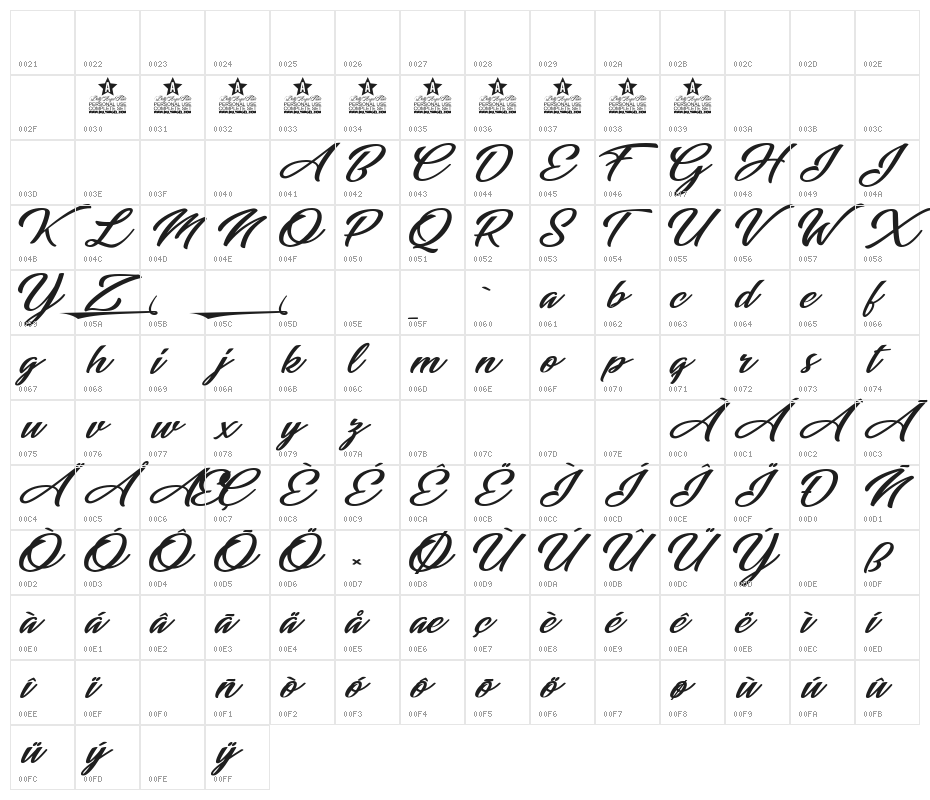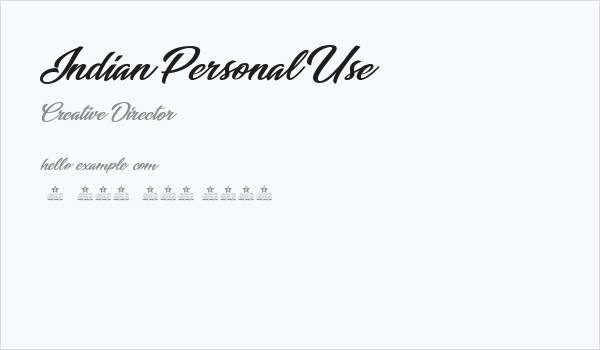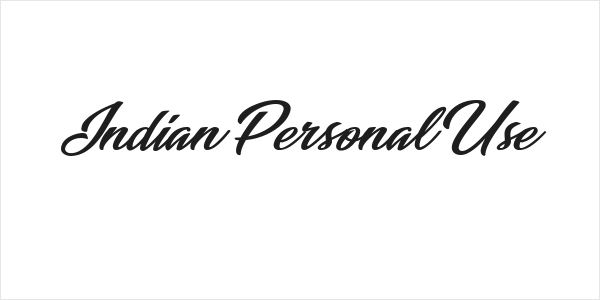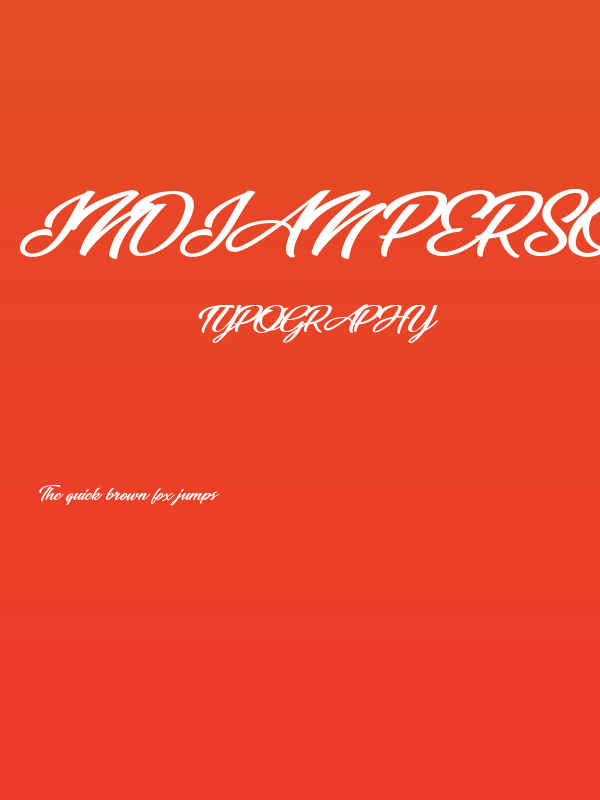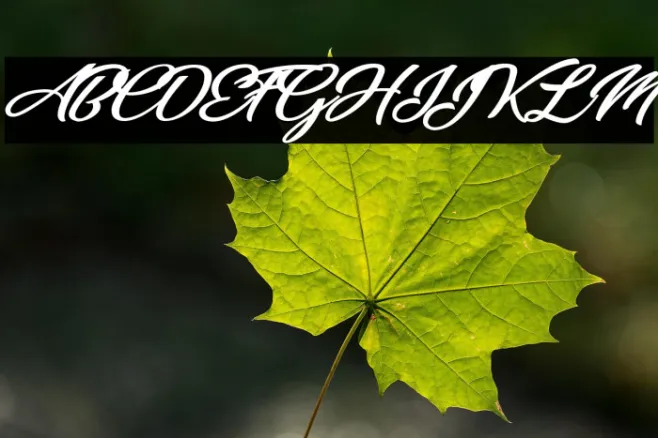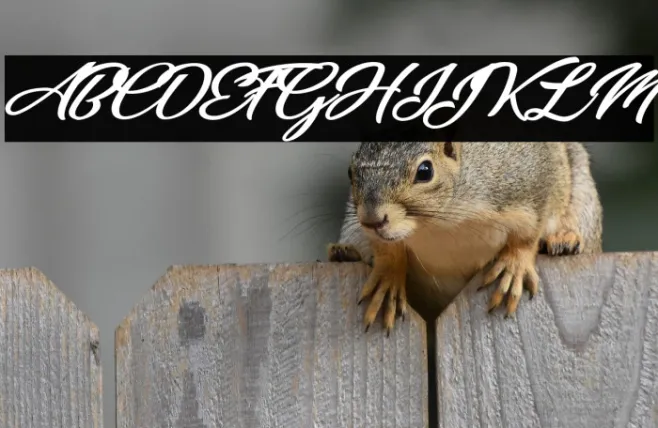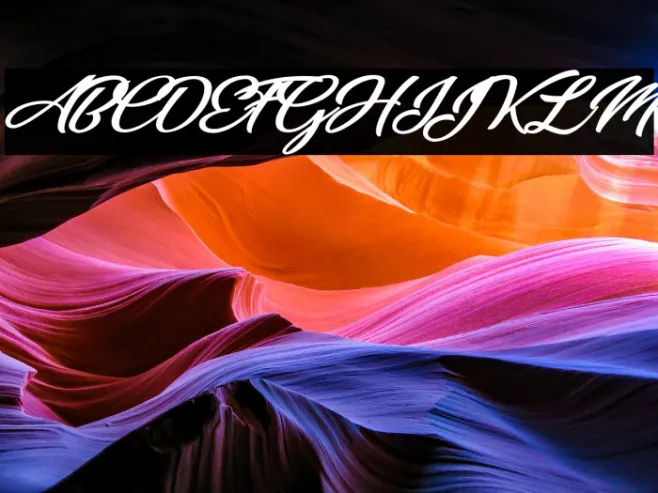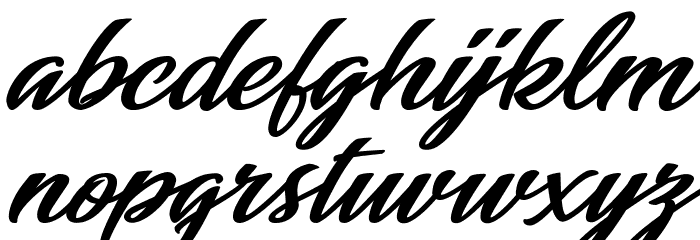
Indian Personal Use Font
Indian Personal Use Description
This font features an elegant, flowing script style that mimics the fluidity of handwriting. The characters are interconnected, creating a seamless and sophisticated appearance. The uppercase letters are ornate with flourishes, while the lowercase letters maintain a consistent, smooth flow. The overall design is bold, with thick strokes that enhance its visibility and impact. This font exudes a sense of elegance and formality, making it suitable for various decorative purposes.
| Use Case | Logos, Invitations, Decorative Text |
| Proposed Projects | Ideal for wedding invitations, greeting cards, logos, and branding materials that require a touch of elegance and sophistication. |